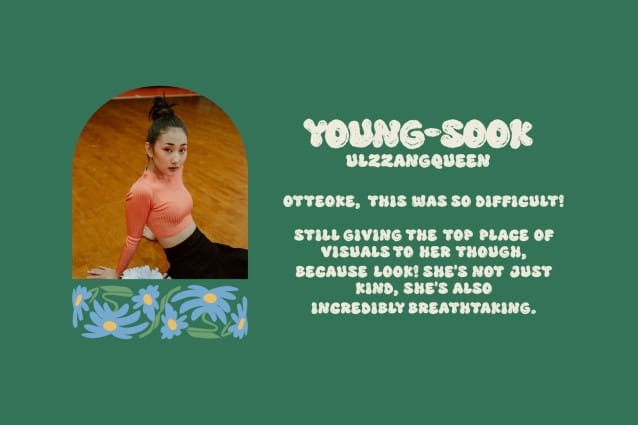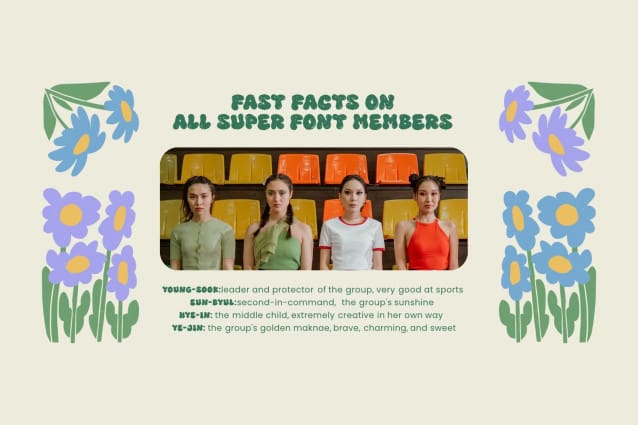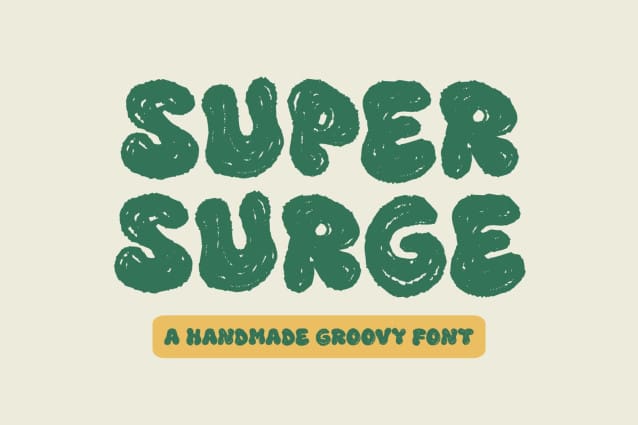
Super Surge Font
Super Surge Font is a groovy, textured font with an organic feel, created handmade. It is a playful and dynamic font that is perfect for adding a touch of personality to any project.